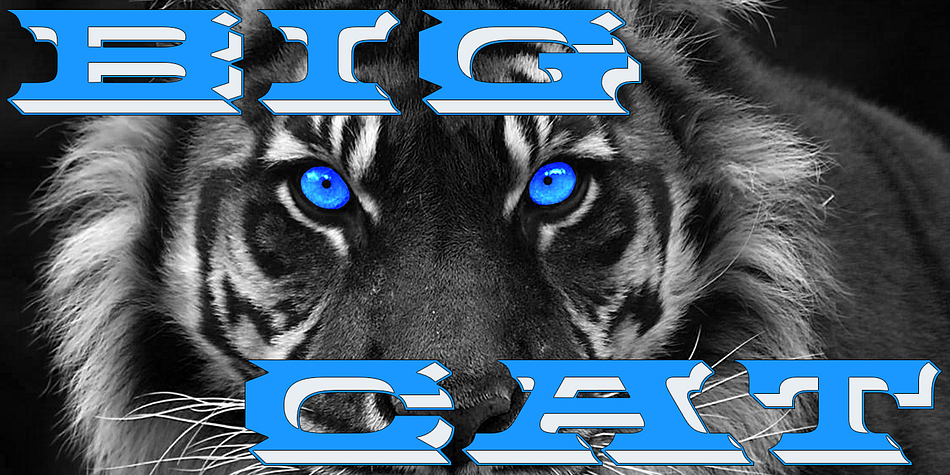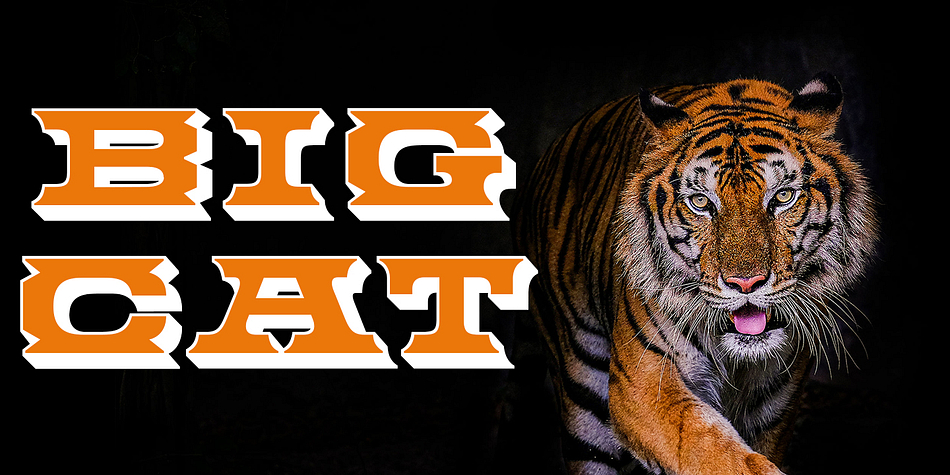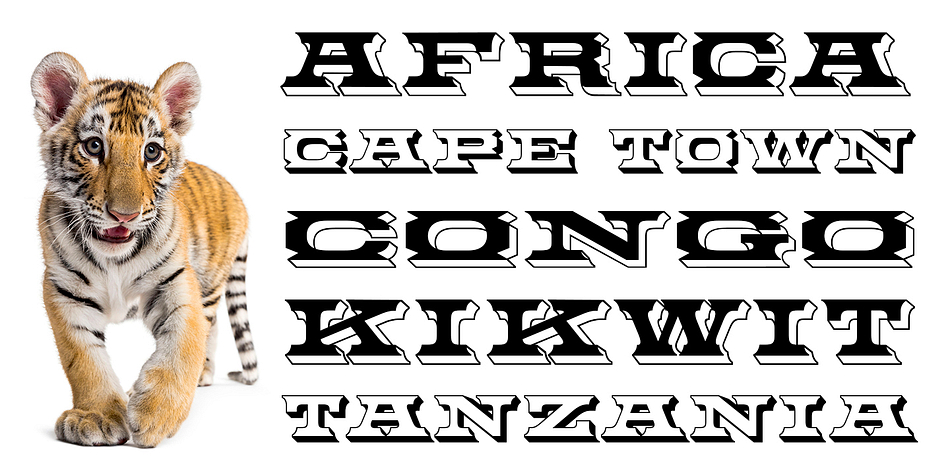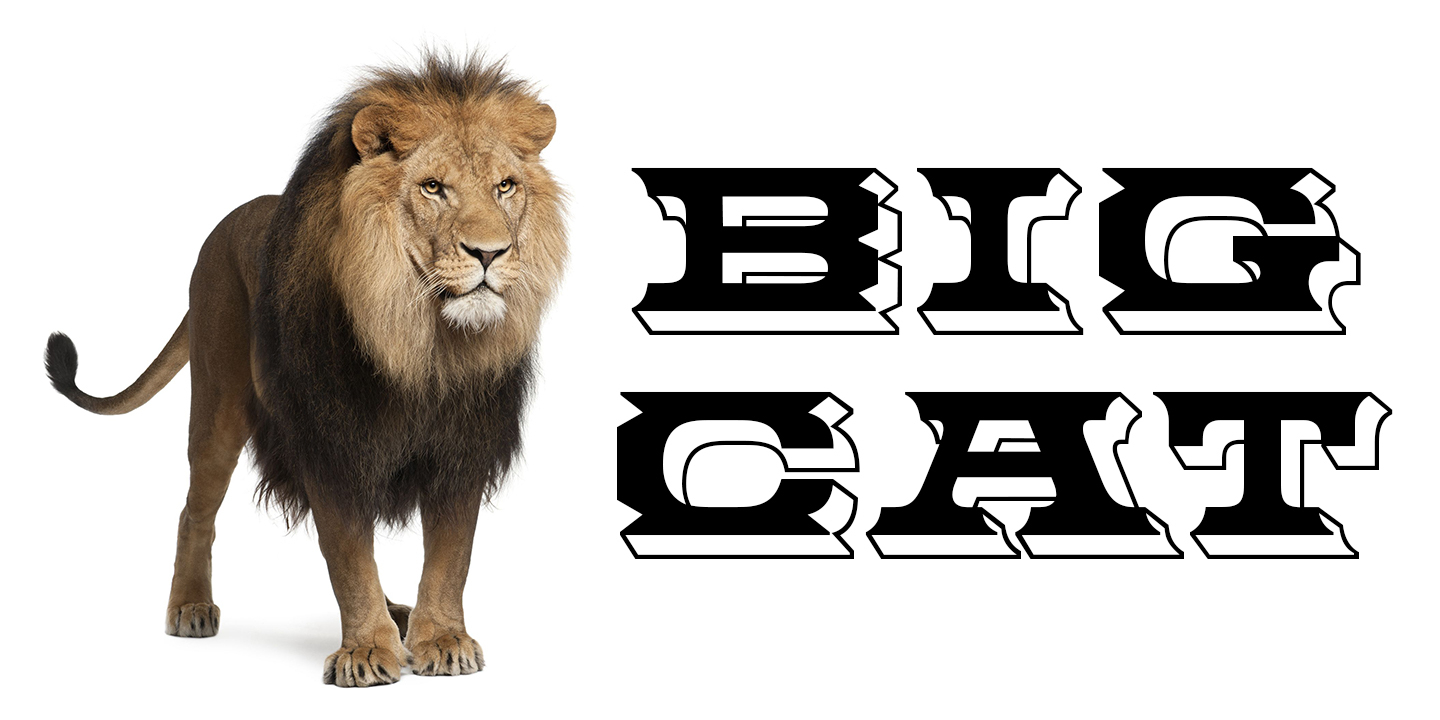
BIG CAT OPEN
Big Cat Open is a western font family. This typeface has four styles and was published by FontMesa.
Released in 2006 under the name Flatrock this new 2020 version takes back the original name of Big Cat. Also new for 2020 are two solid black weights and Big Cat now has additional accented glyphs for eastern European countries.
If you’re looking to make an authentic 1800’s broadside poster then Big Cat is perfect for the job, combine it with other woodtype fonts from our collection.